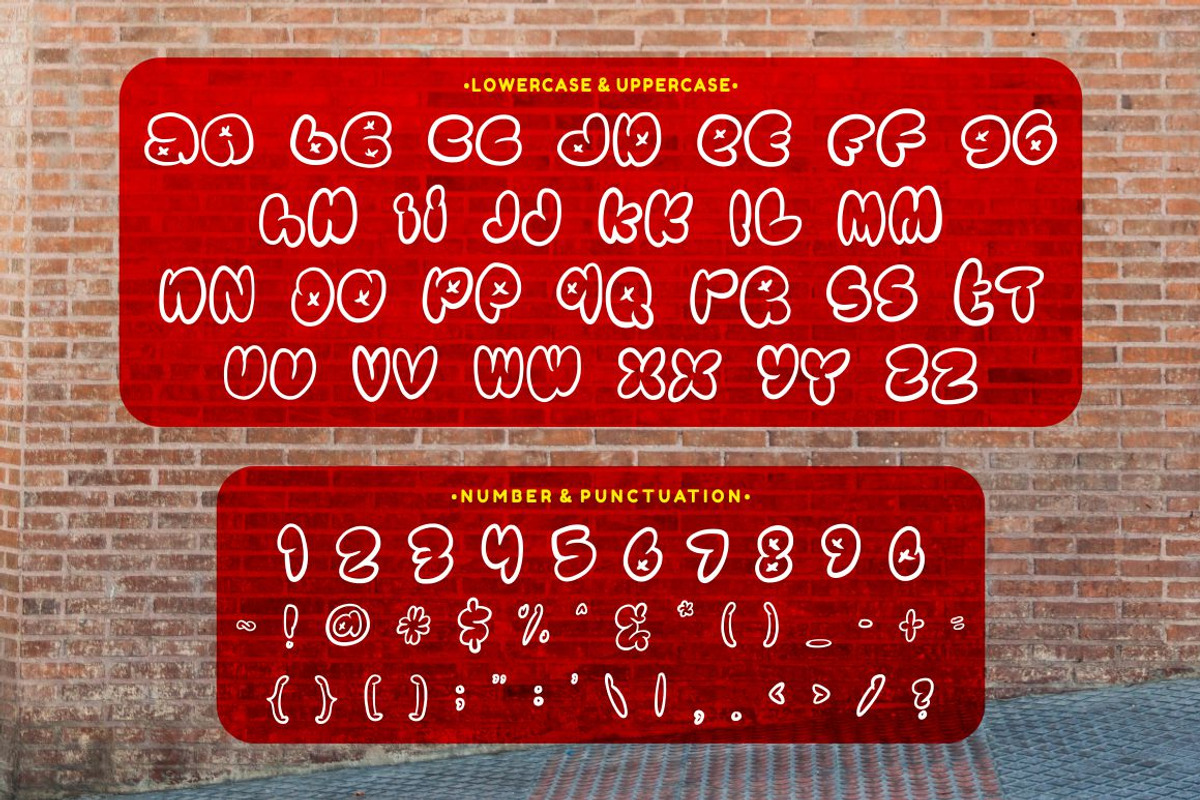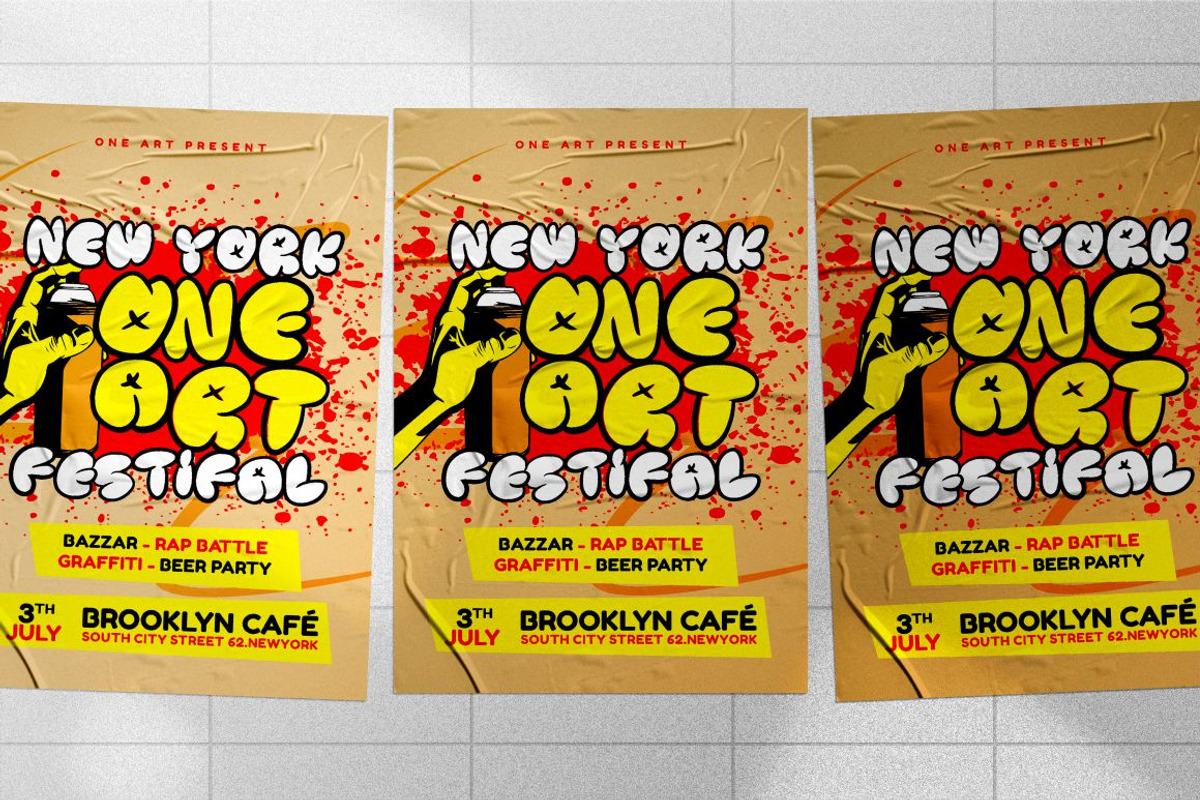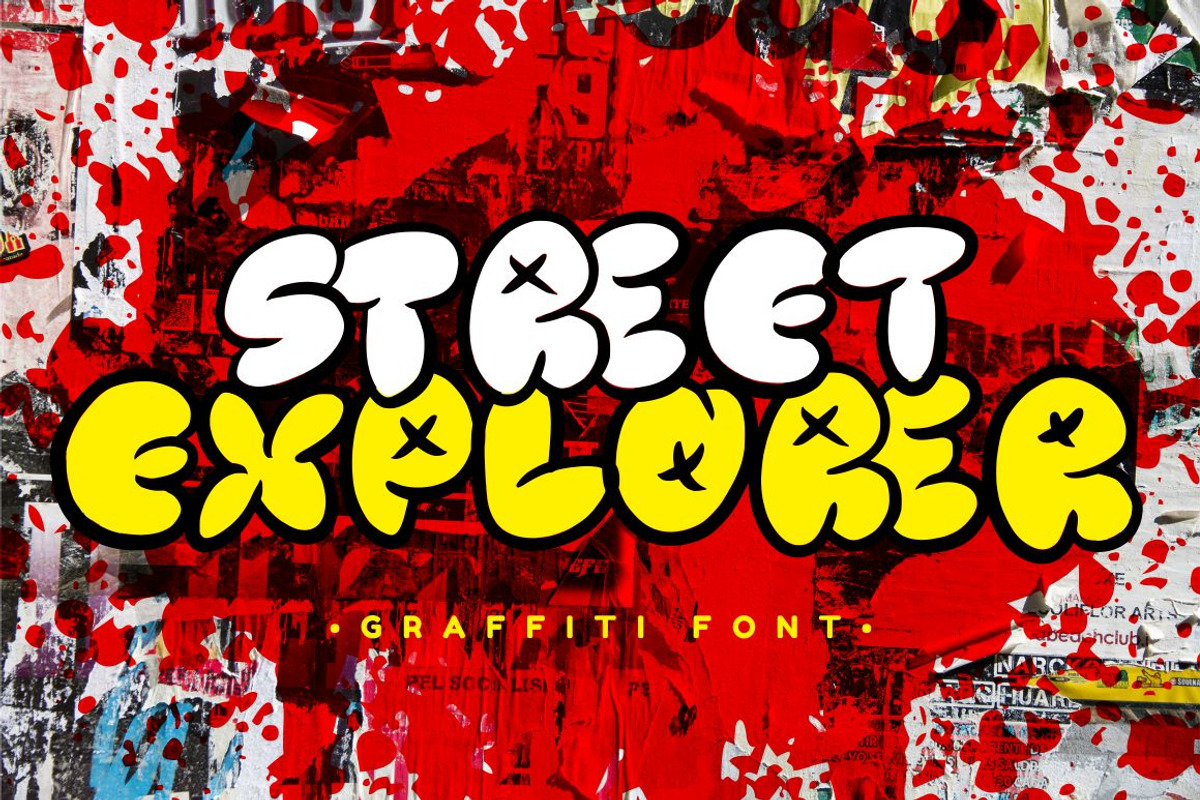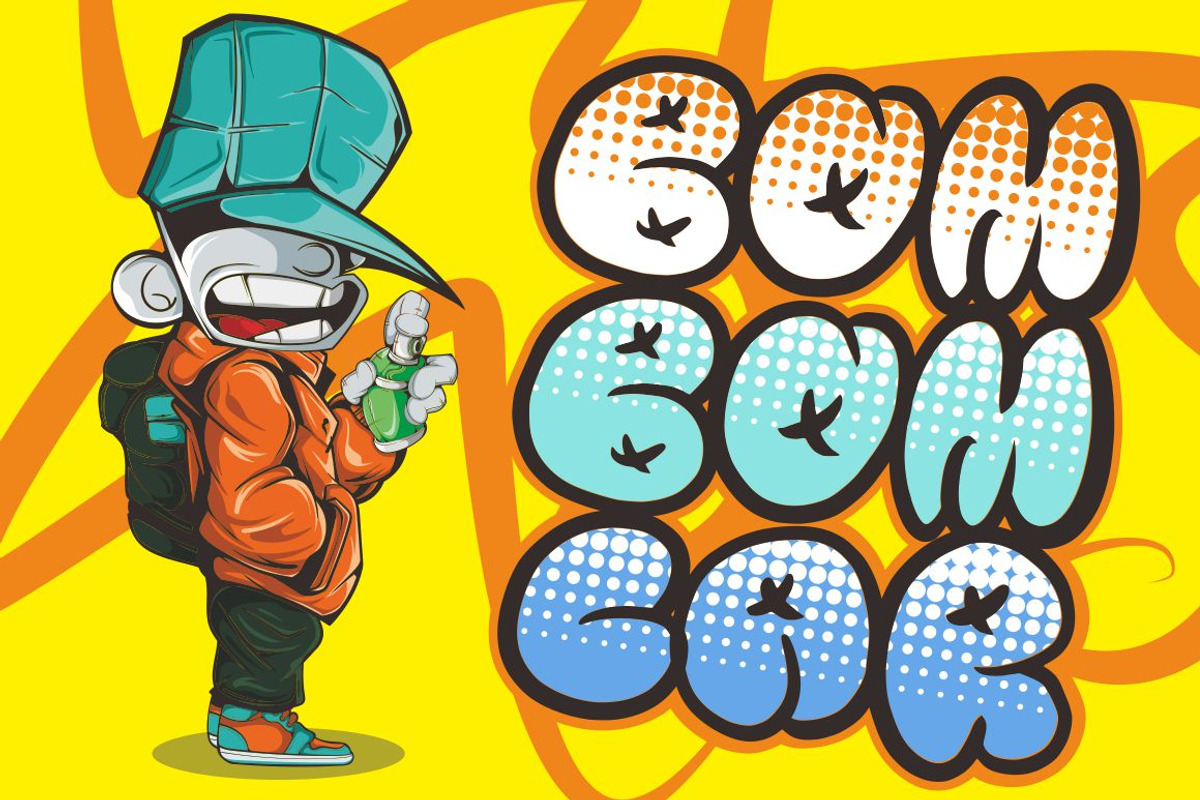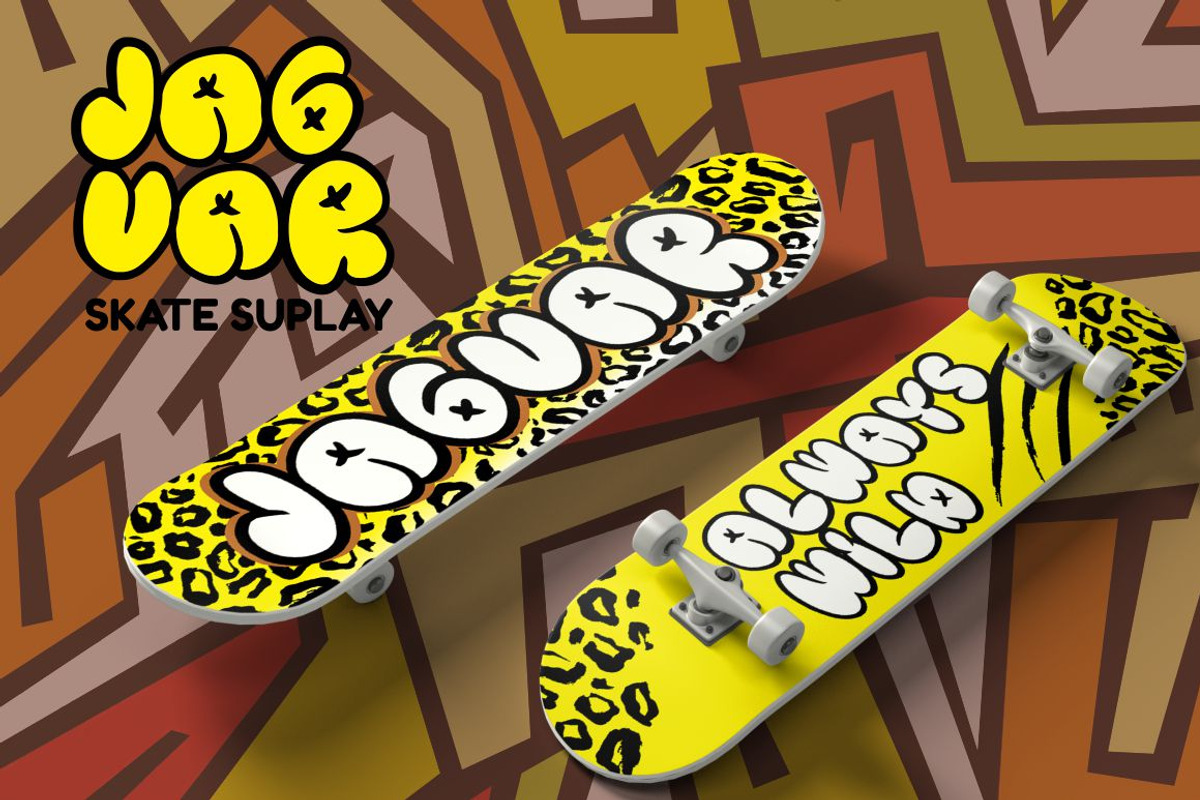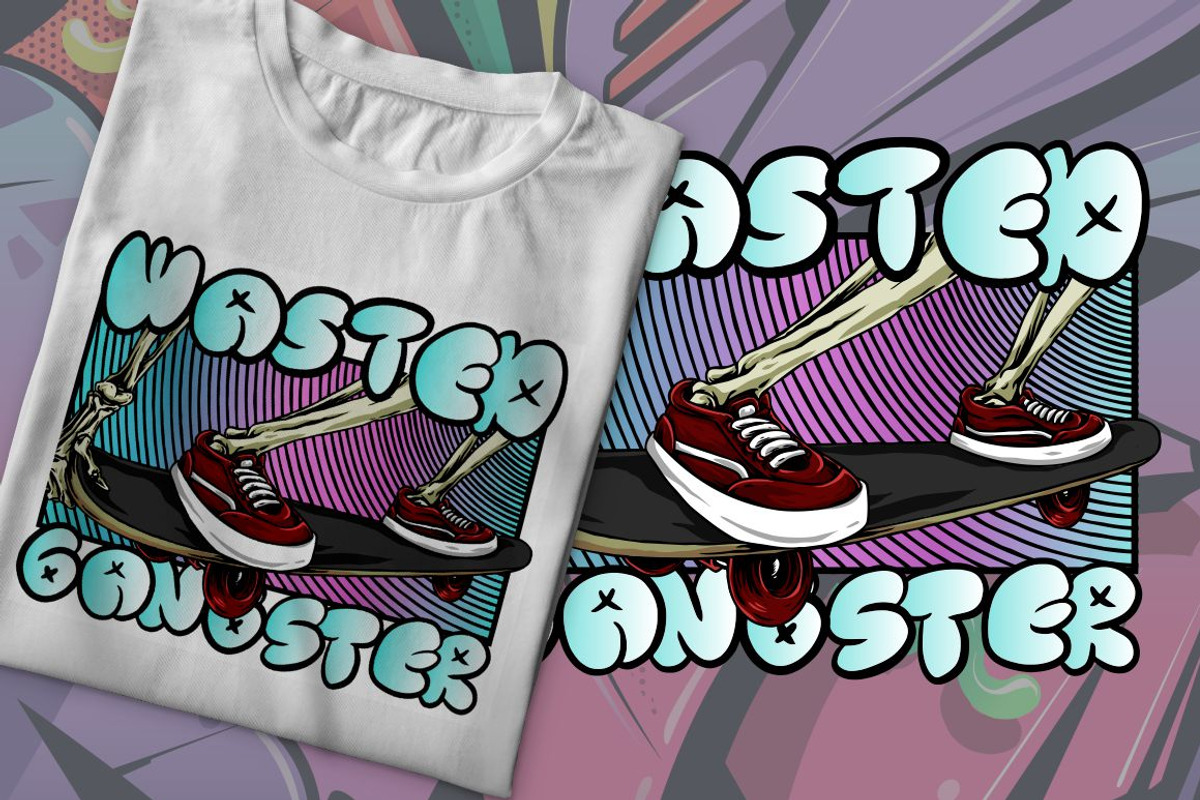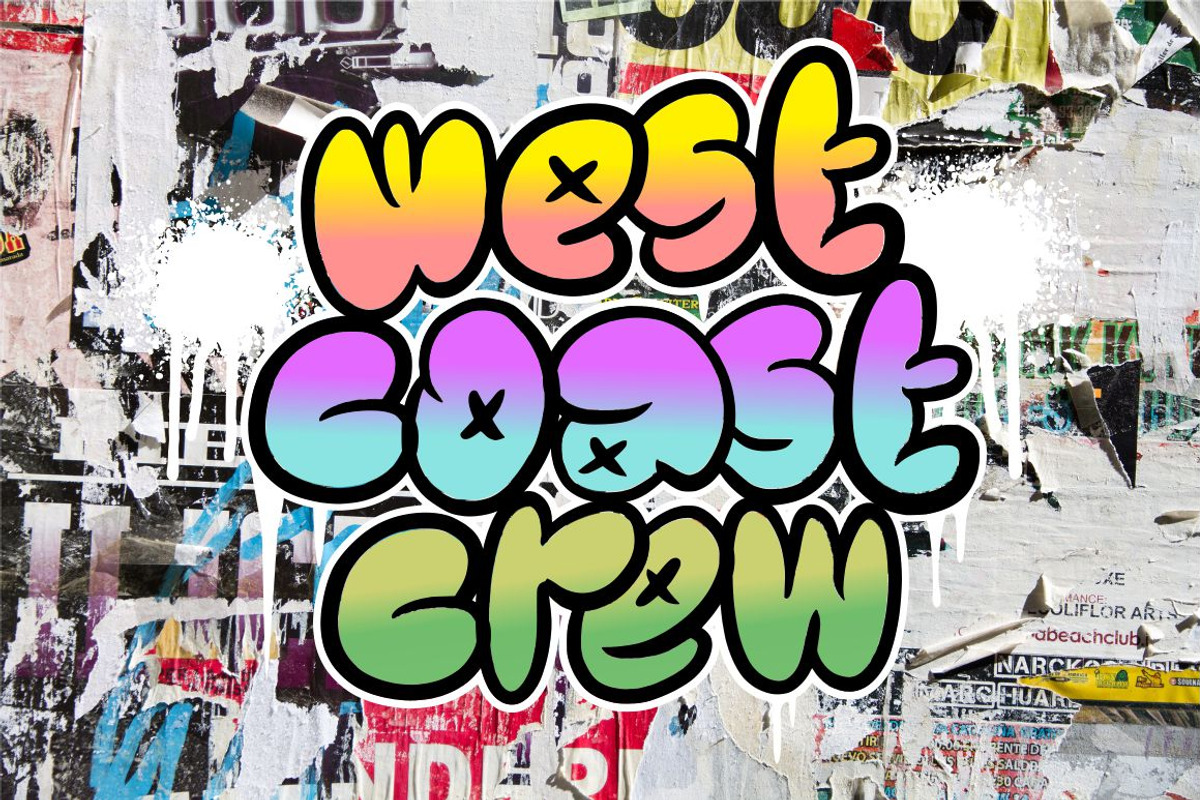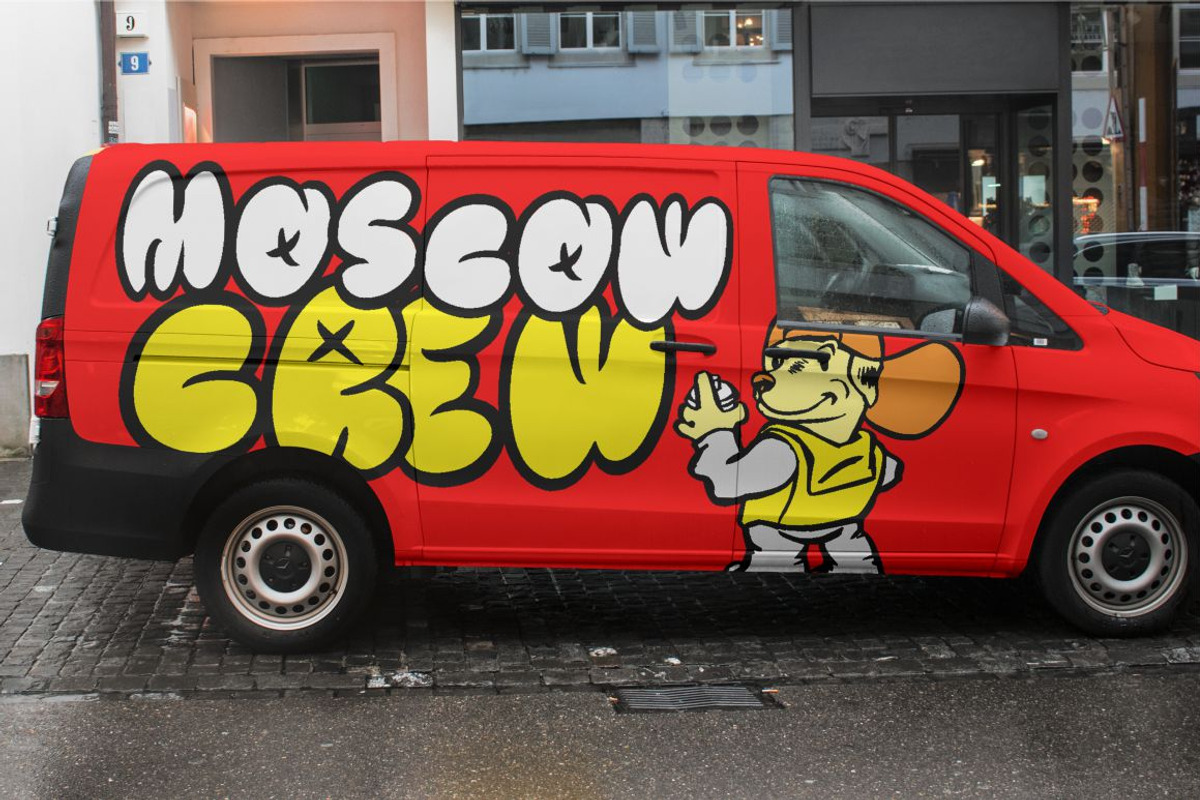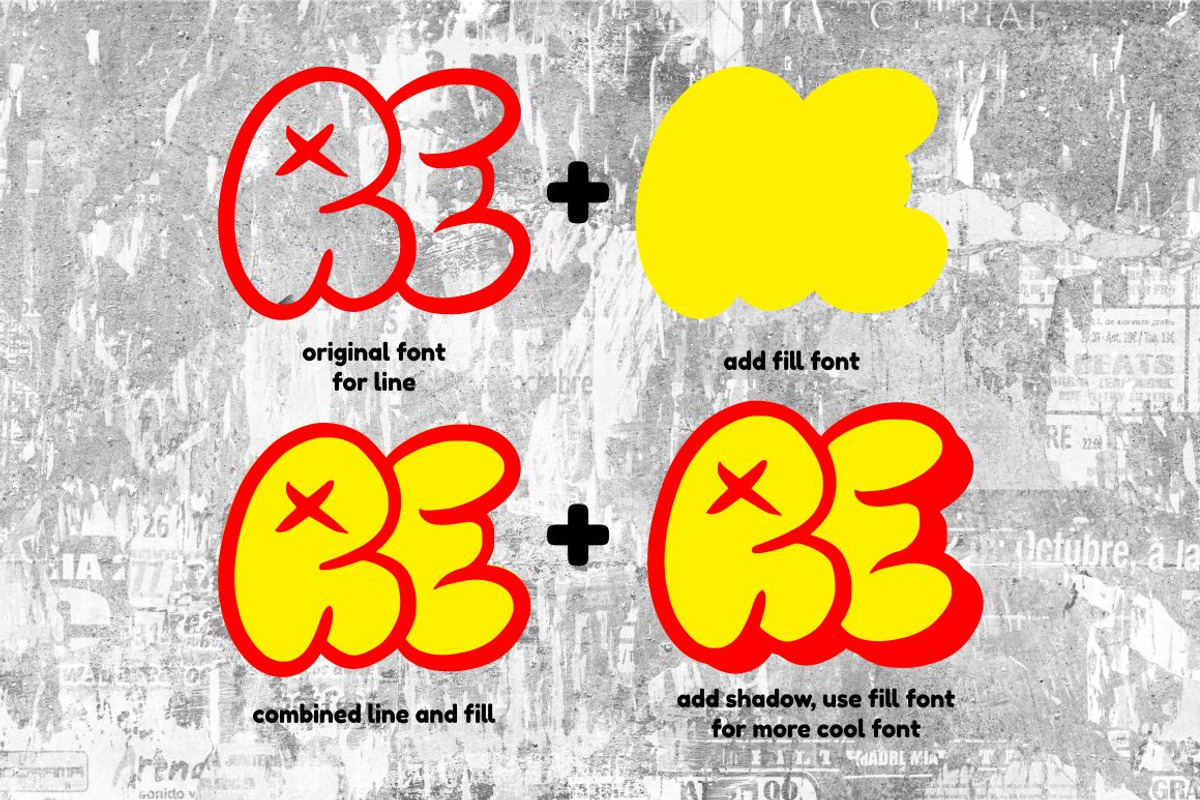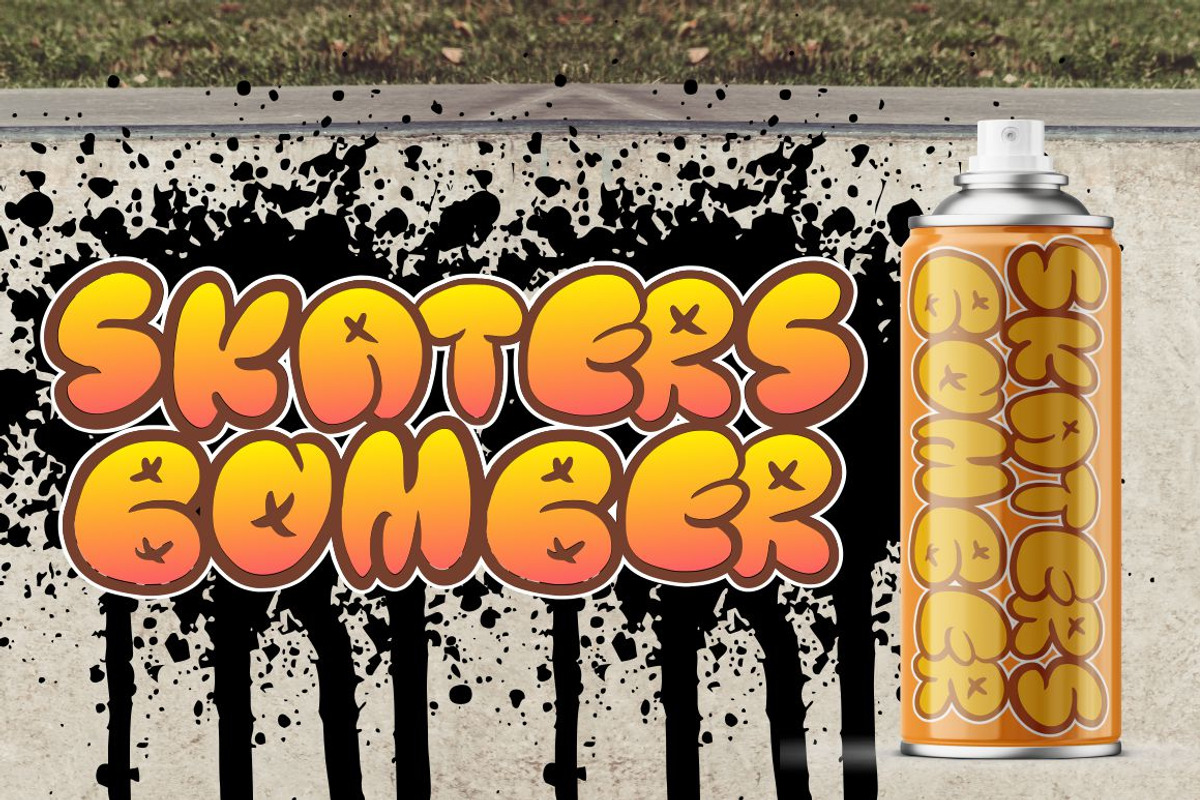
Street Explorer - Graffiti Font
Street Explorer - Graffiti Font. Street Explorer A Graffiti Style Font. Inspired by the graffiti art on the city streets, so I made it into a font. So that it will make it easier for you to make graffiti writing or designs. There are 54 ligatures that will make this font even cooler. so enjoy it! Suitable for many design project, branding, packaging, logo, wall art, headline, template, banner, poster, and so much more!
Comes with feature :
- Opentype (Alternates And Ligatures)
- Number, Punctuation And Symbols
- Multilanguage Support.